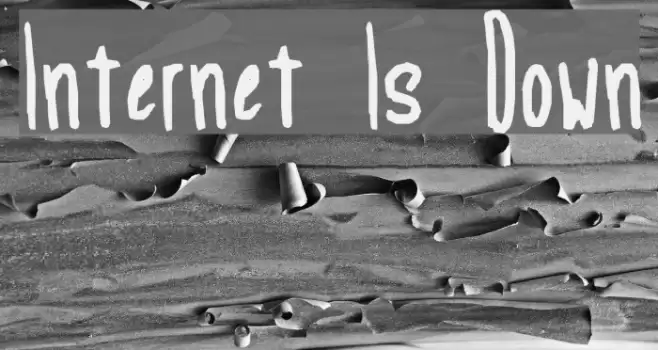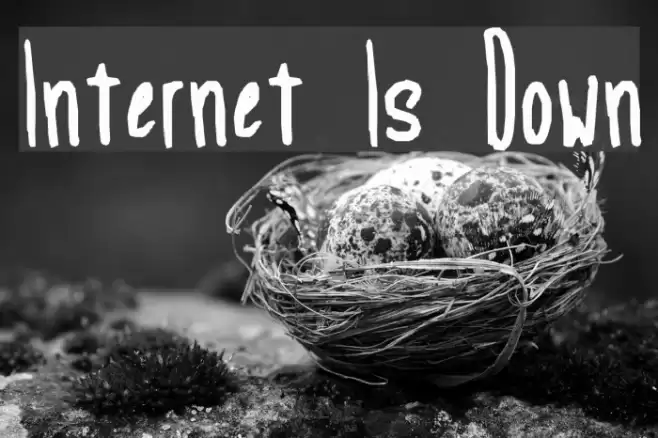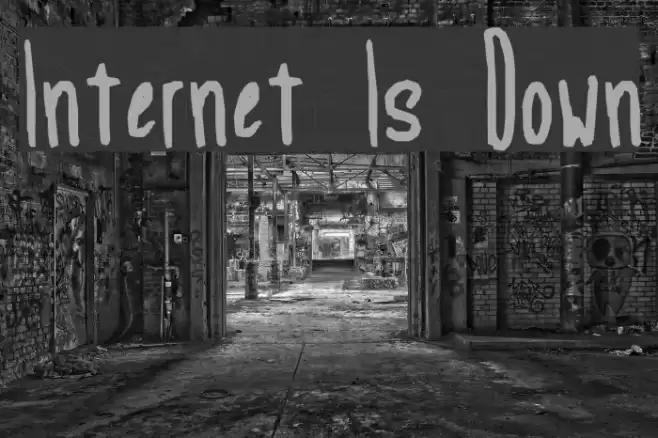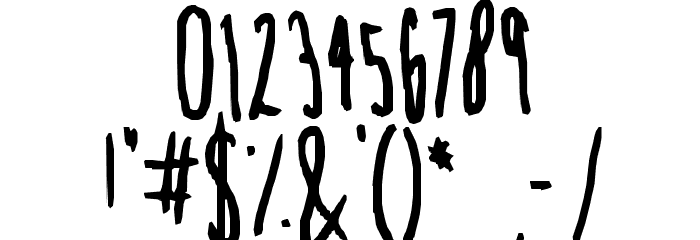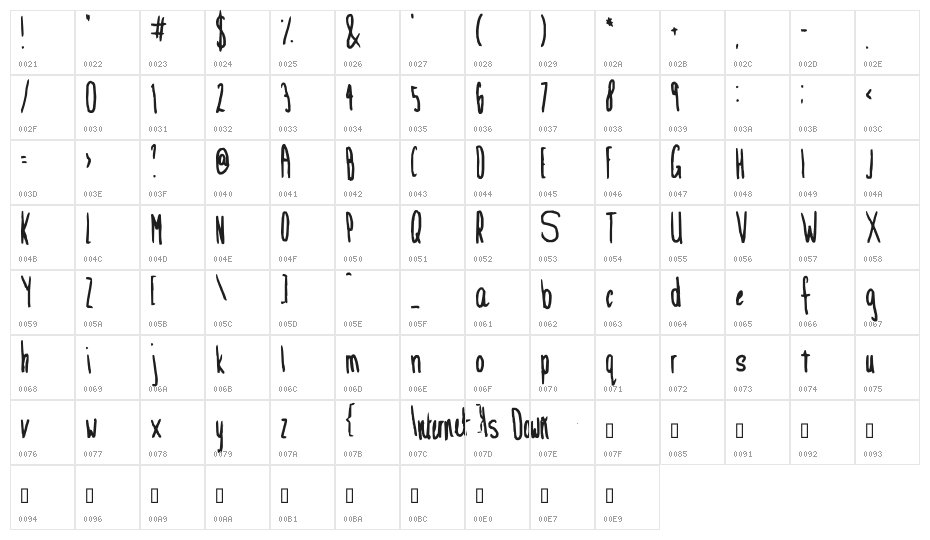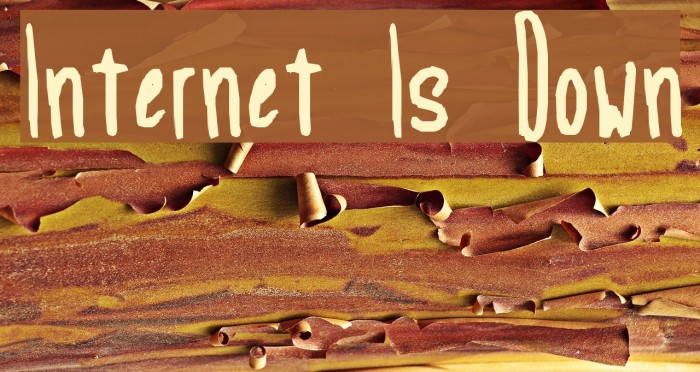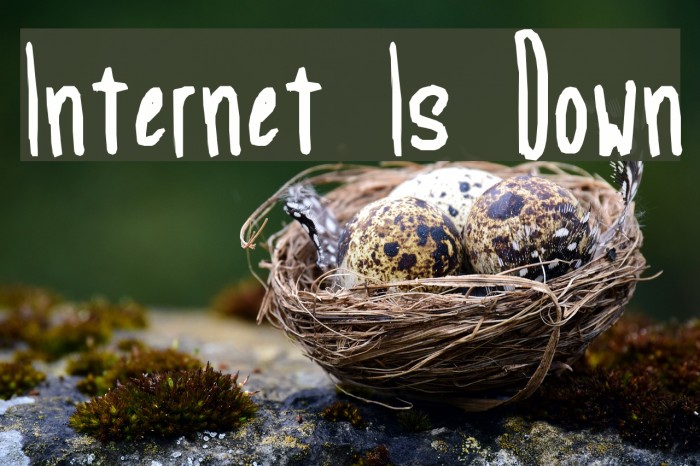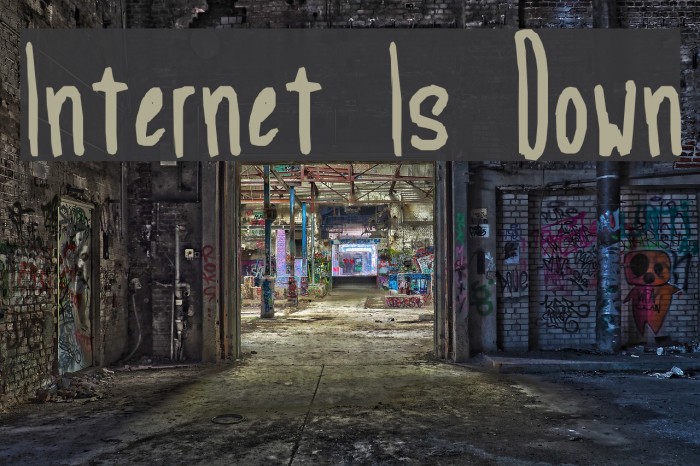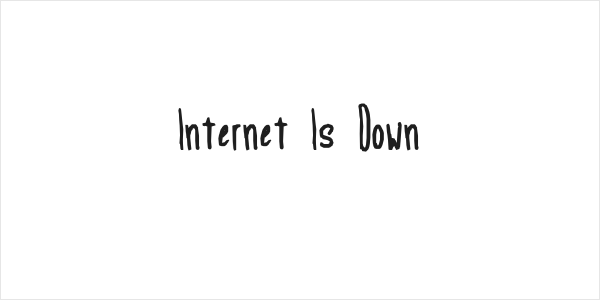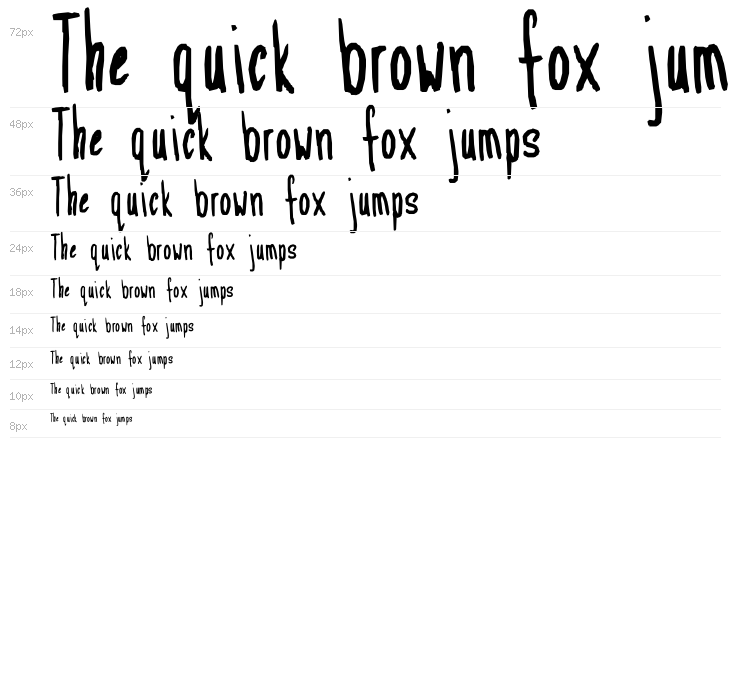
Internet Is Down Font
Internet Is Down Description
This font features a playful and irregular handwritten style, characterized by its uneven strokes and varying line thickness. The letters have a casual, almost whimsical appearance, with each character exhibiting unique quirks and variations. The uppercase letters are tall and narrow, while the lowercase letters maintain a consistent height, adding to the font's quirky charm. Numbers and special characters follow the same playful design, making the font suitable for creative and informal projects. The overall look is dynamic and energetic, perfect for capturing attention in a fun and engaging way.
A playful, irregular handwritten font with dynamic and whimsical characteristics from Uncategorized fonts.
- Proposed Projects: Ideal for children's books, creative posters, casual invitations, and playful branding.